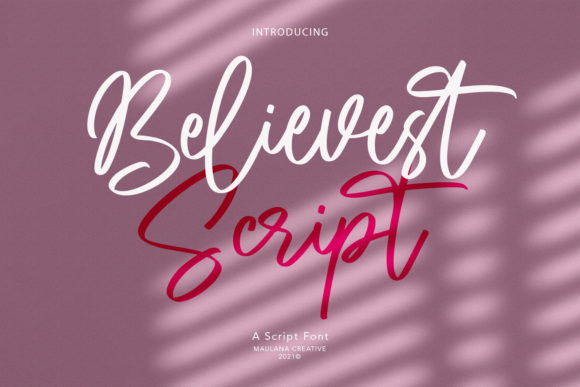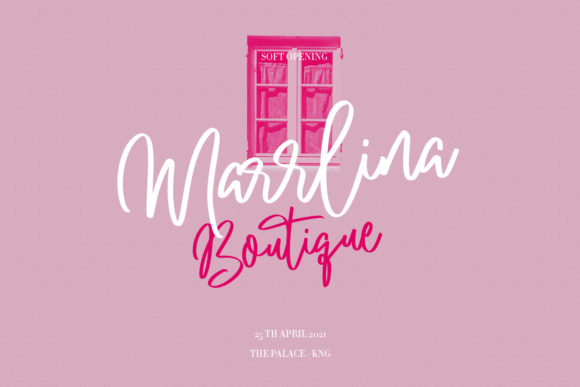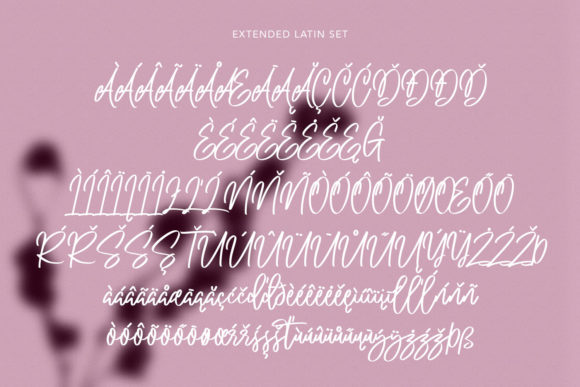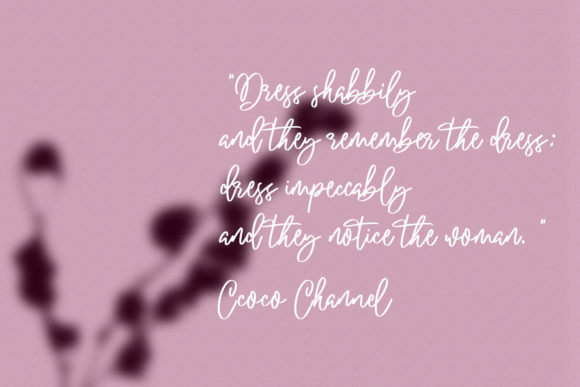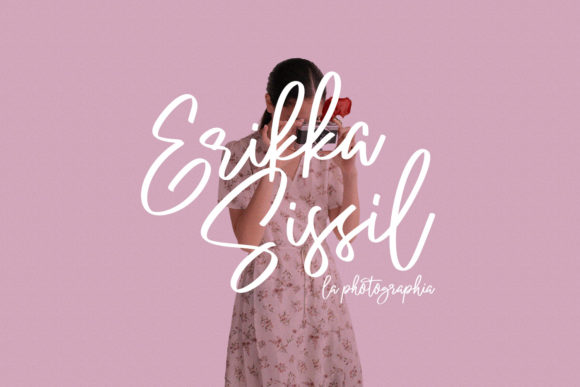
About Believest Script Font
Believest Script is a casual, stylish, and cursive script font that draws inspiration from timeless calligraphy. With its balanced and varied letterforms, this font is designed to enhance the beauty of your projects.
The casual and stylish nature of Believest Script sets it apart as a font that exudes a sense of effortless charm. Its cursive script style adds a touch of informality and approachability, making it suitable for a wide range of projects. Whether you’re designing invitations, branding materials, or other creative works, Believest Script brings a relaxed yet stylish vibe that captures attention.
Believest Script strikes a harmonious balance between being not too thin and not too thick. This careful balance ensures excellent legibility while offering variation and visual interest. The font’s balanced and varied design adds depth and dimension to your projects, enhancing their overall beauty.
Drawing inspiration from timeless calligraphy, Believest Script brings a touch of classic elegance to your designs. It captures the essence of traditional calligraphic craftsmanship while maintaining a contemporary appeal. This combination of classic and modern influences makes Believest Script versatile and adaptable to various design styles and themes.
By using Believest Script, you enhance the beauty of your projects with its casual and stylish letterforms. Whether you’re working on invitations, branding, or any other creative endeavor, Believest Script adds a touch of relaxed elegance that elevates the overall aesthetic.
In summary, Believest Script is a casual, stylish, and cursive script font that embraces the beauty of timeless calligraphy. With its balanced and varied design, this font enhances the visual appeal of your projects. Choose Believest Script to infuse your designs with a touch of casual elegance and captivate your audience with its effortless charm.